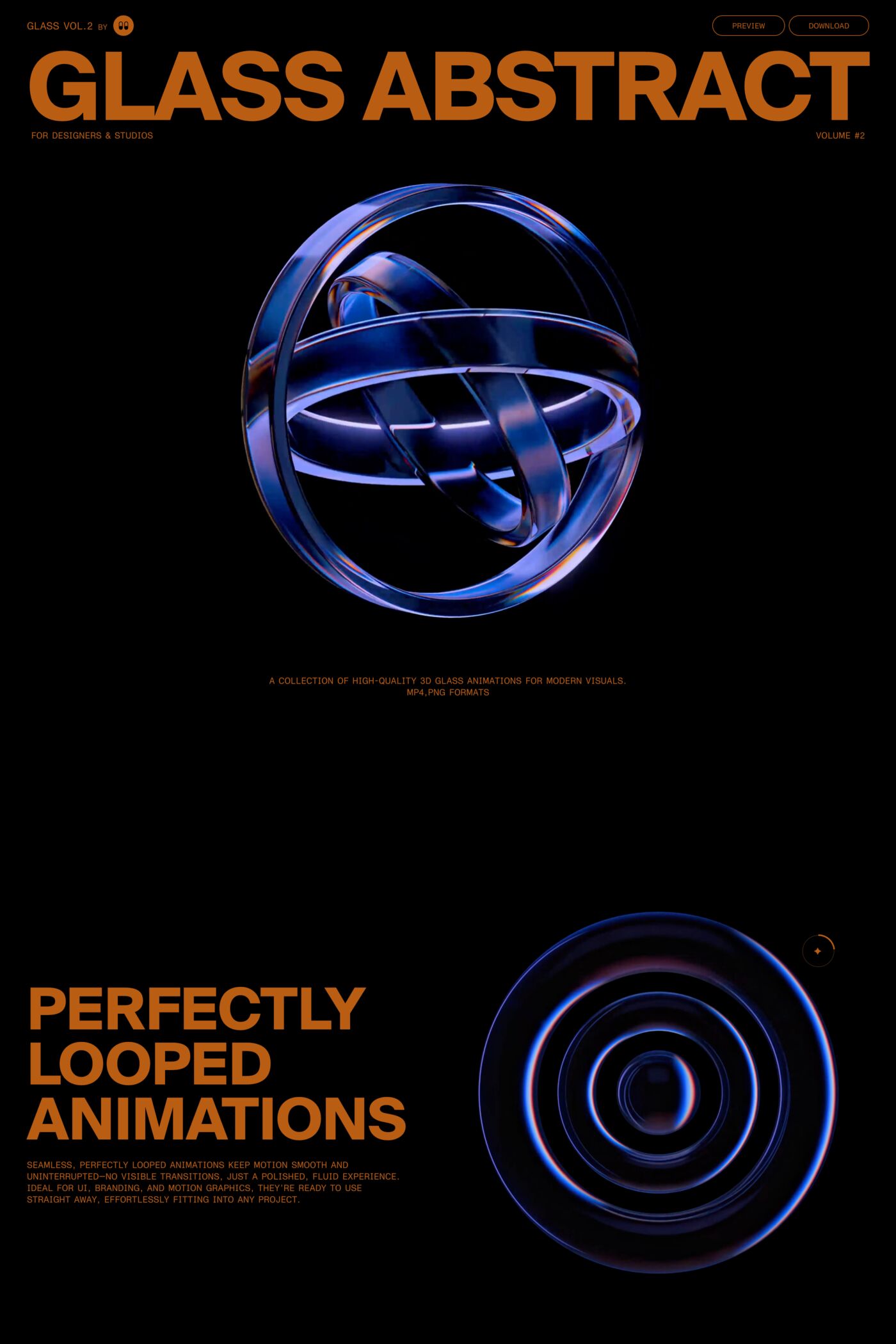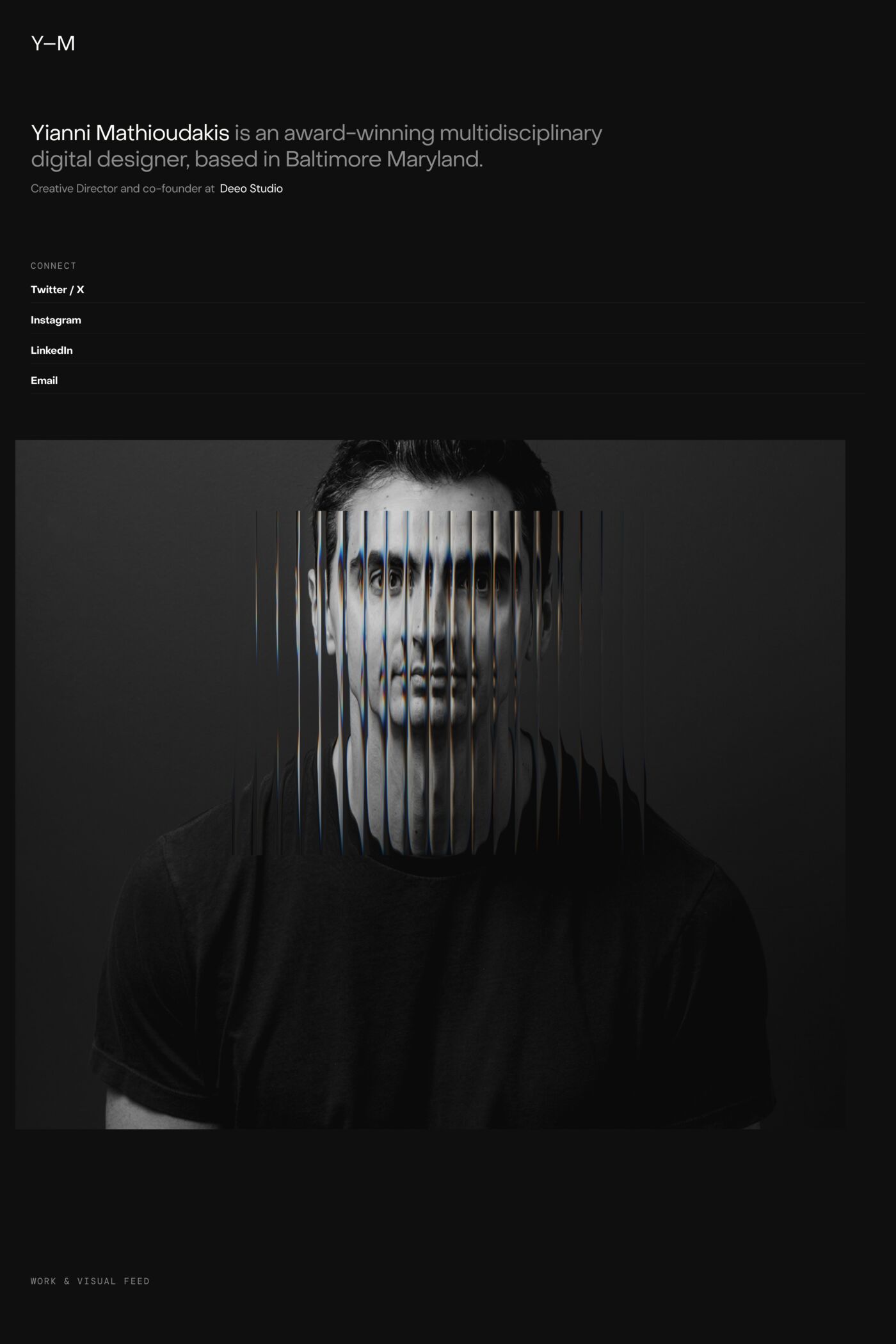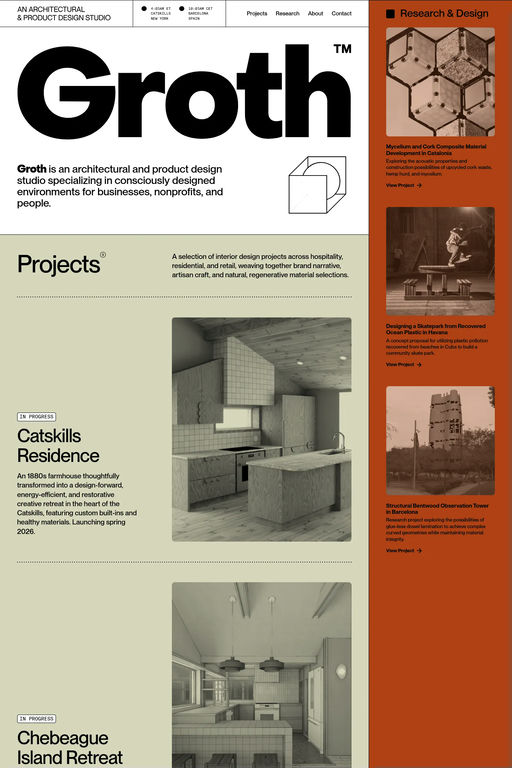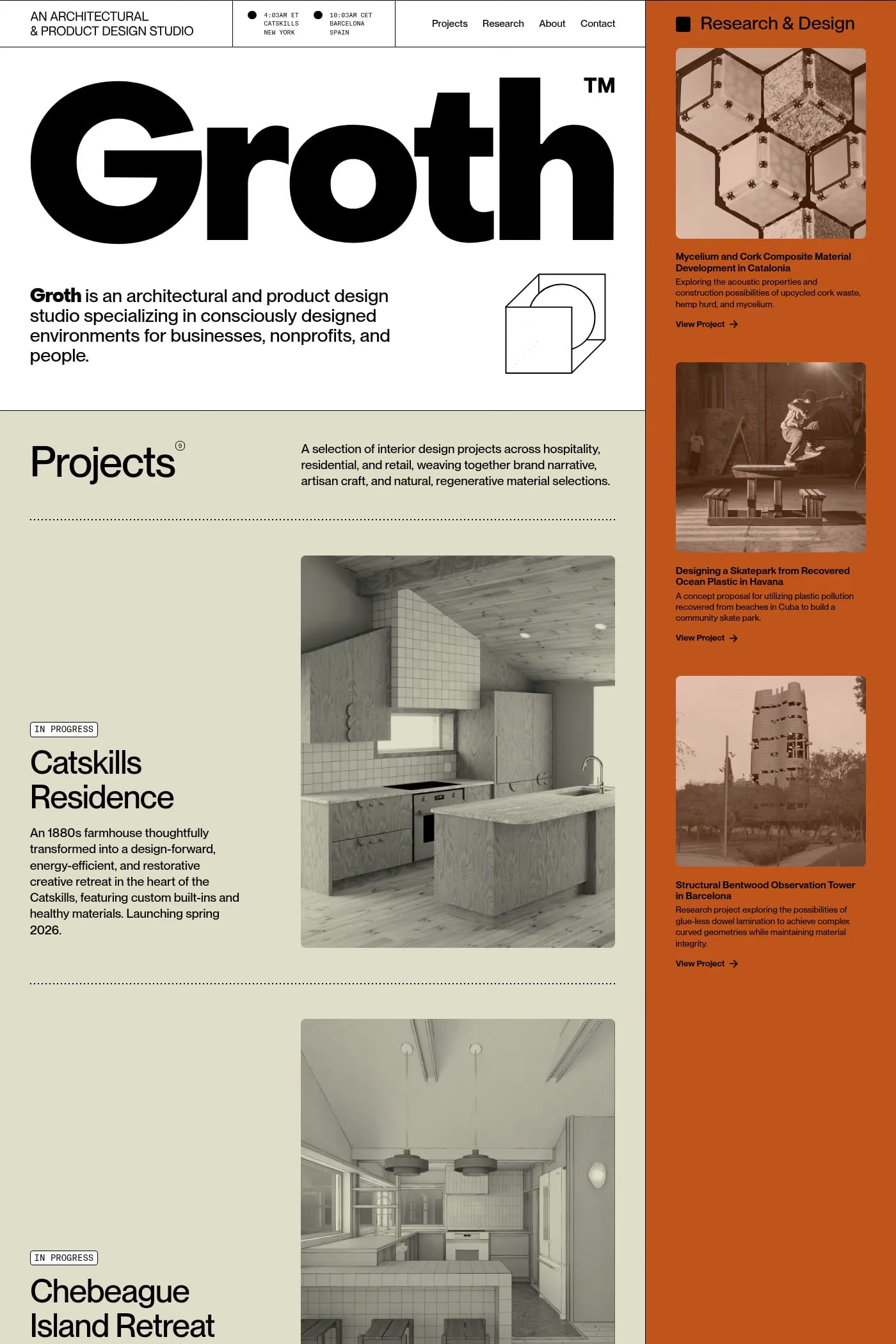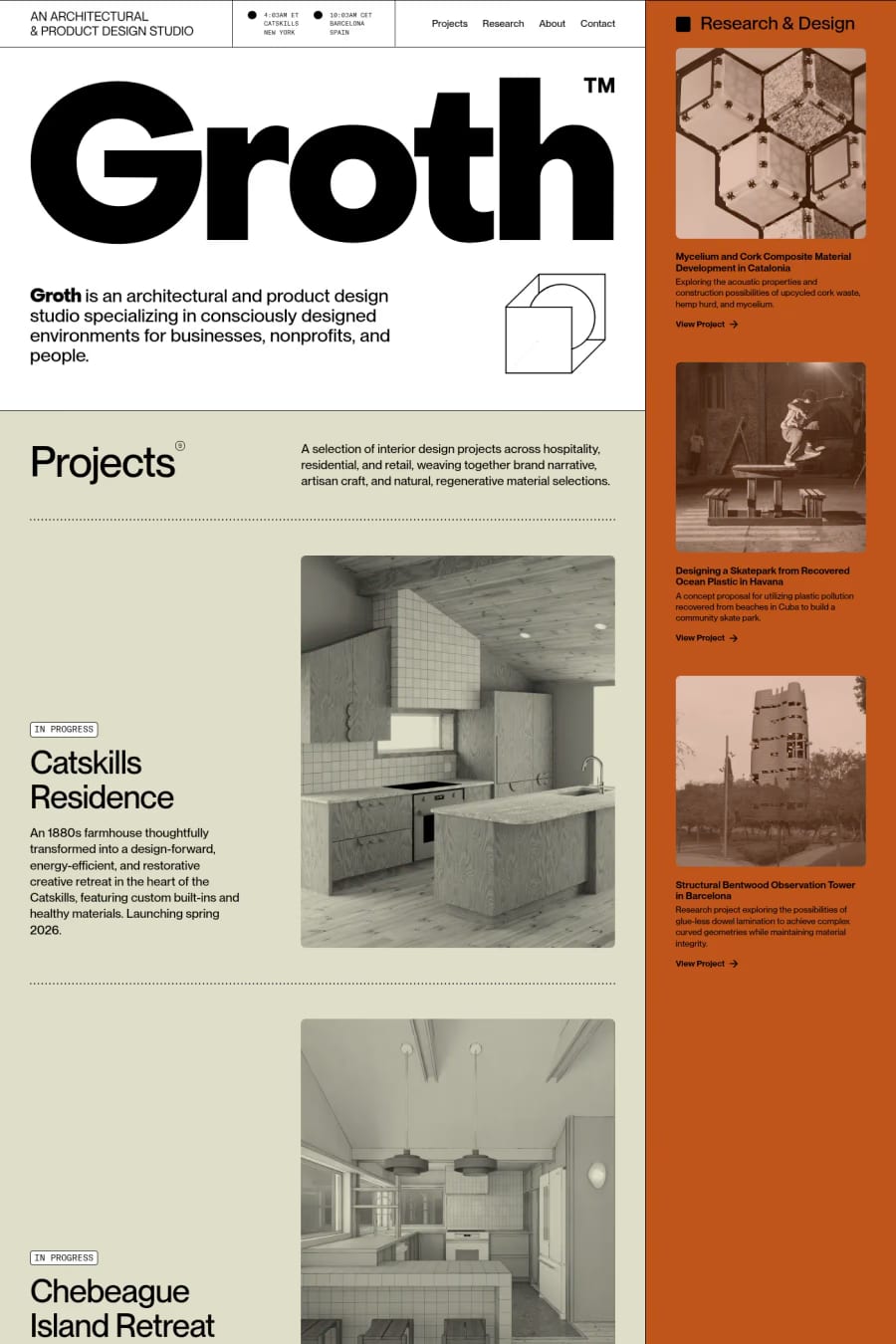
Object Sans is a sans-serif typeface from Pangram.
It’s a multifunctional workhorse designed to work best in any printed and on-screen contexts, including logo design, brand identities, websites, packaging, posters and headlines; regular weight is carefully tuned for small sized body text. Object Sans comes in 7 weights, upright and slanted each.